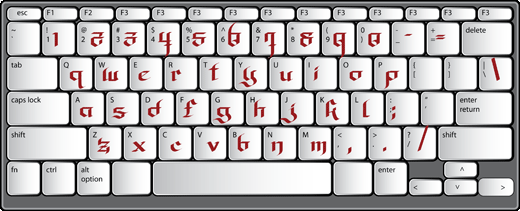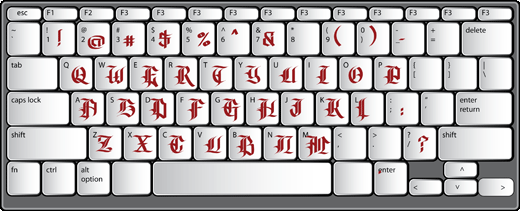
Olde Gangsta™
This font family is very close to standard Olde English styles with a bit of influence from Blackletter styles. The Olde Gangsta™ font family is meant to represent a more Chicano American street gang type of stylization.